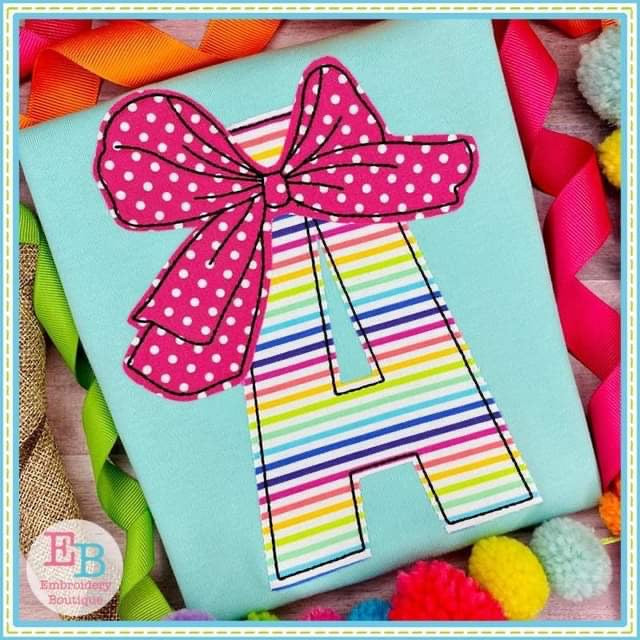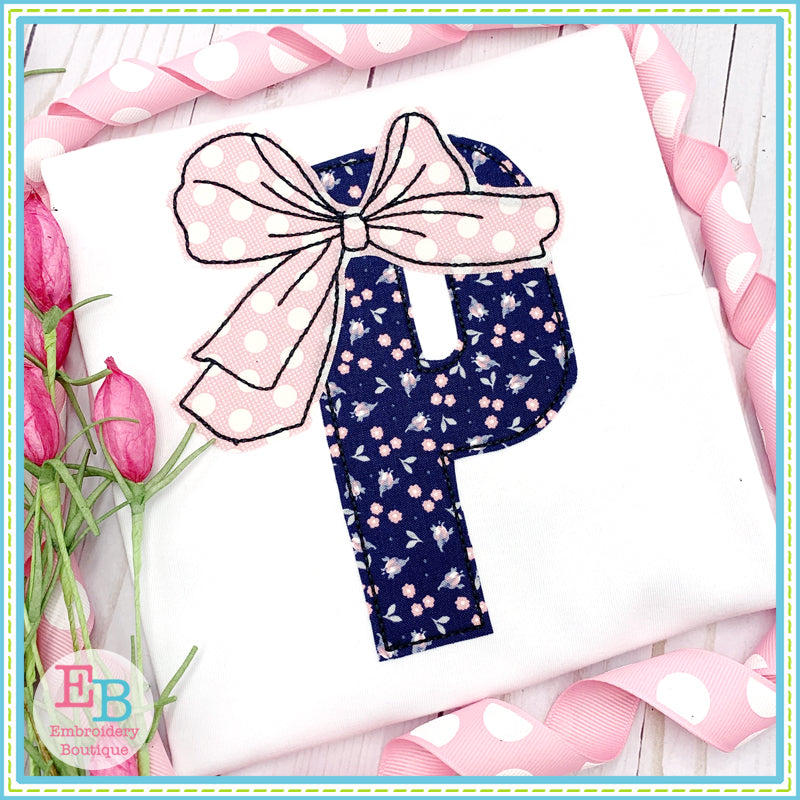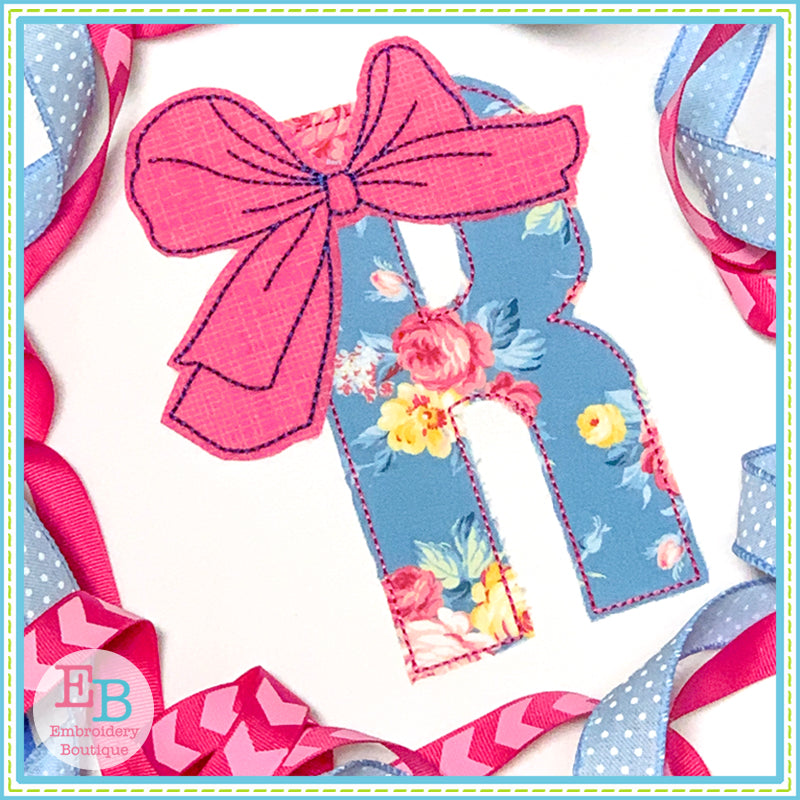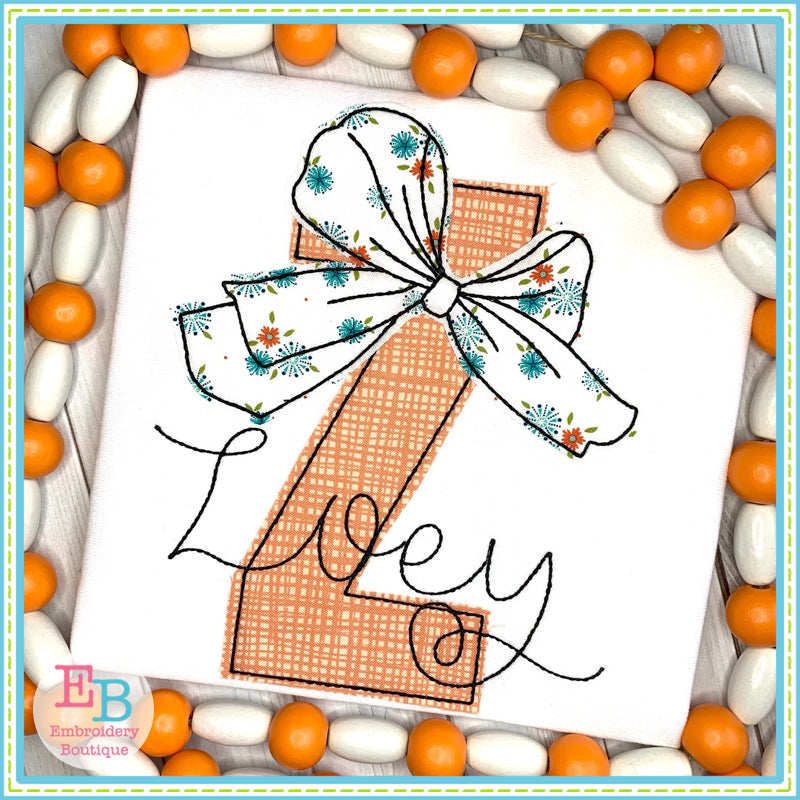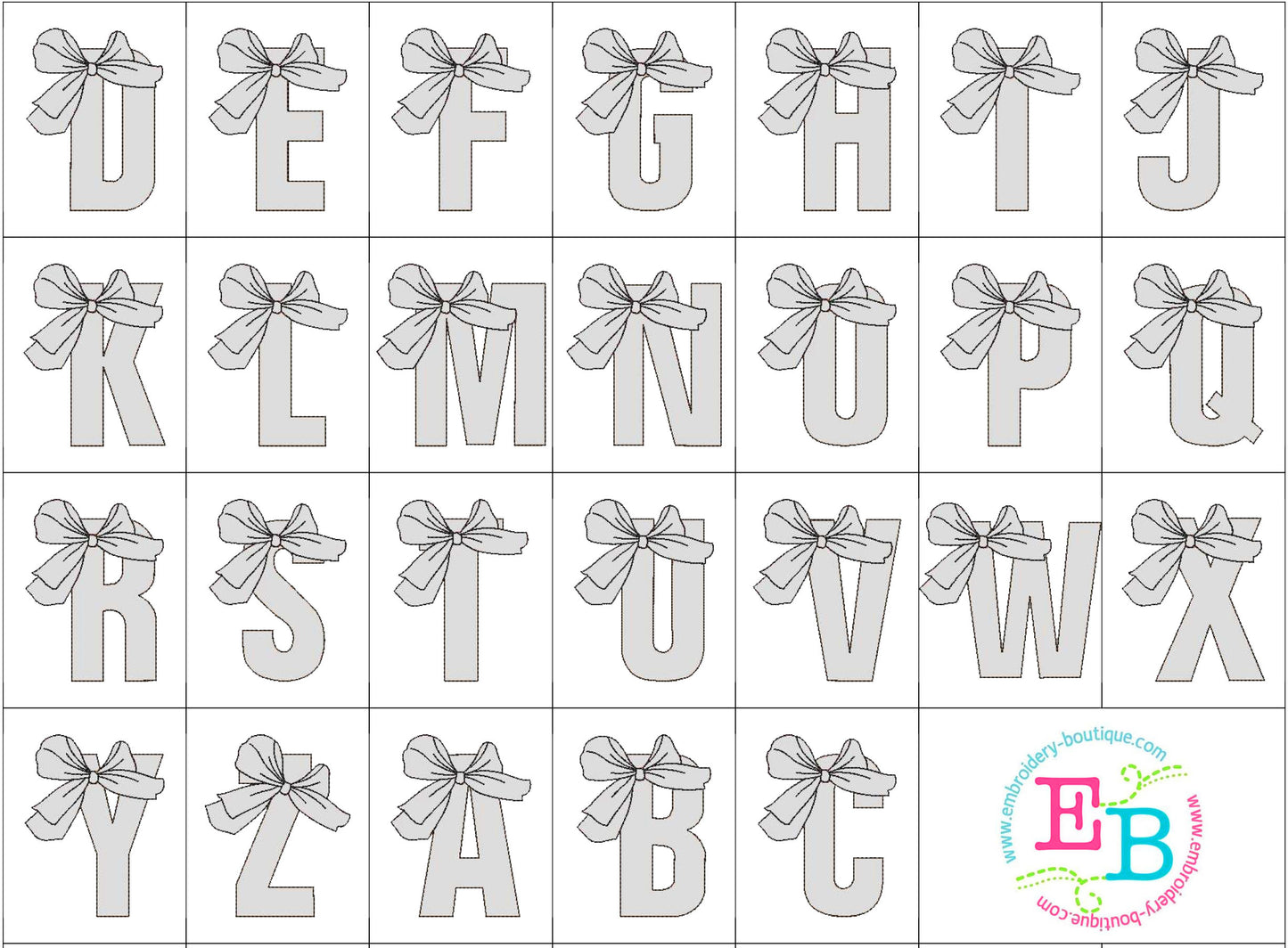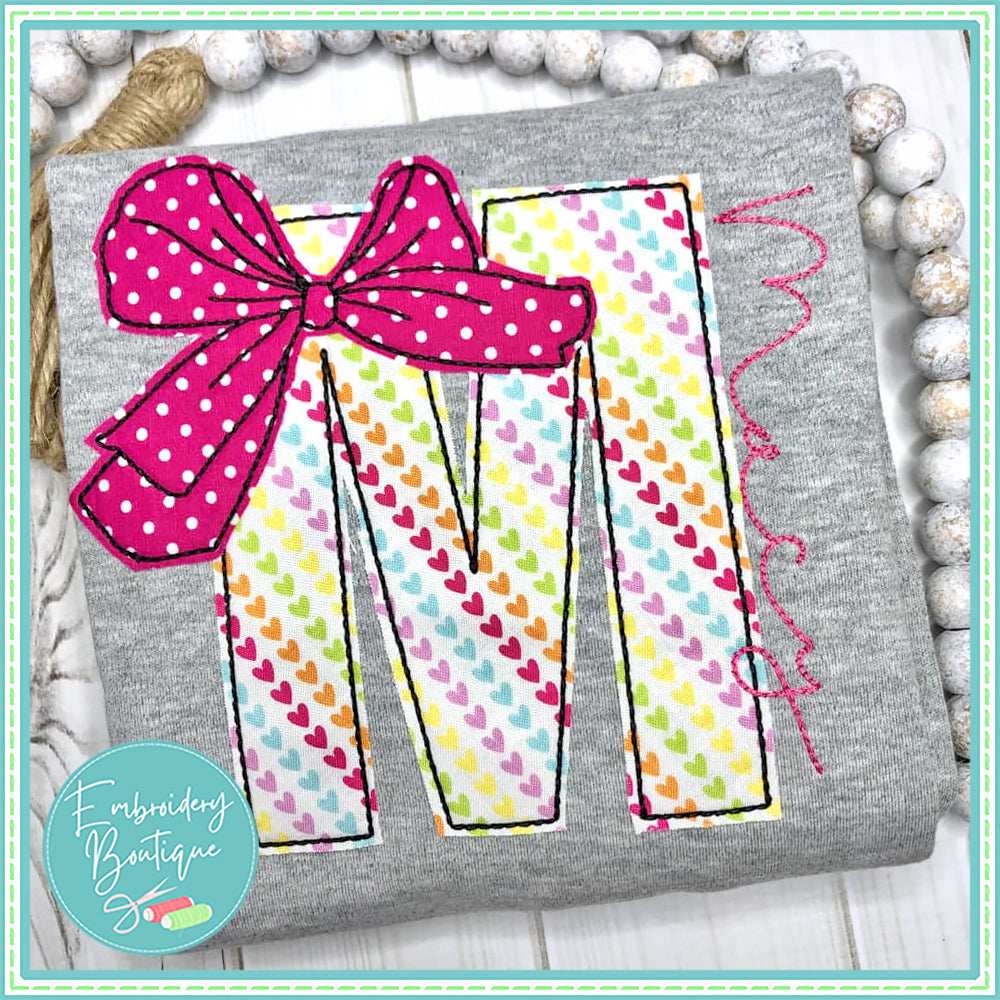
Big Bow Applique Font
Big Bow Applique Font
5 sizes of all 26 capital applique letters included.
These are bean stitch (not satin) so we recommend not cutting as close to the tackdown stitch.